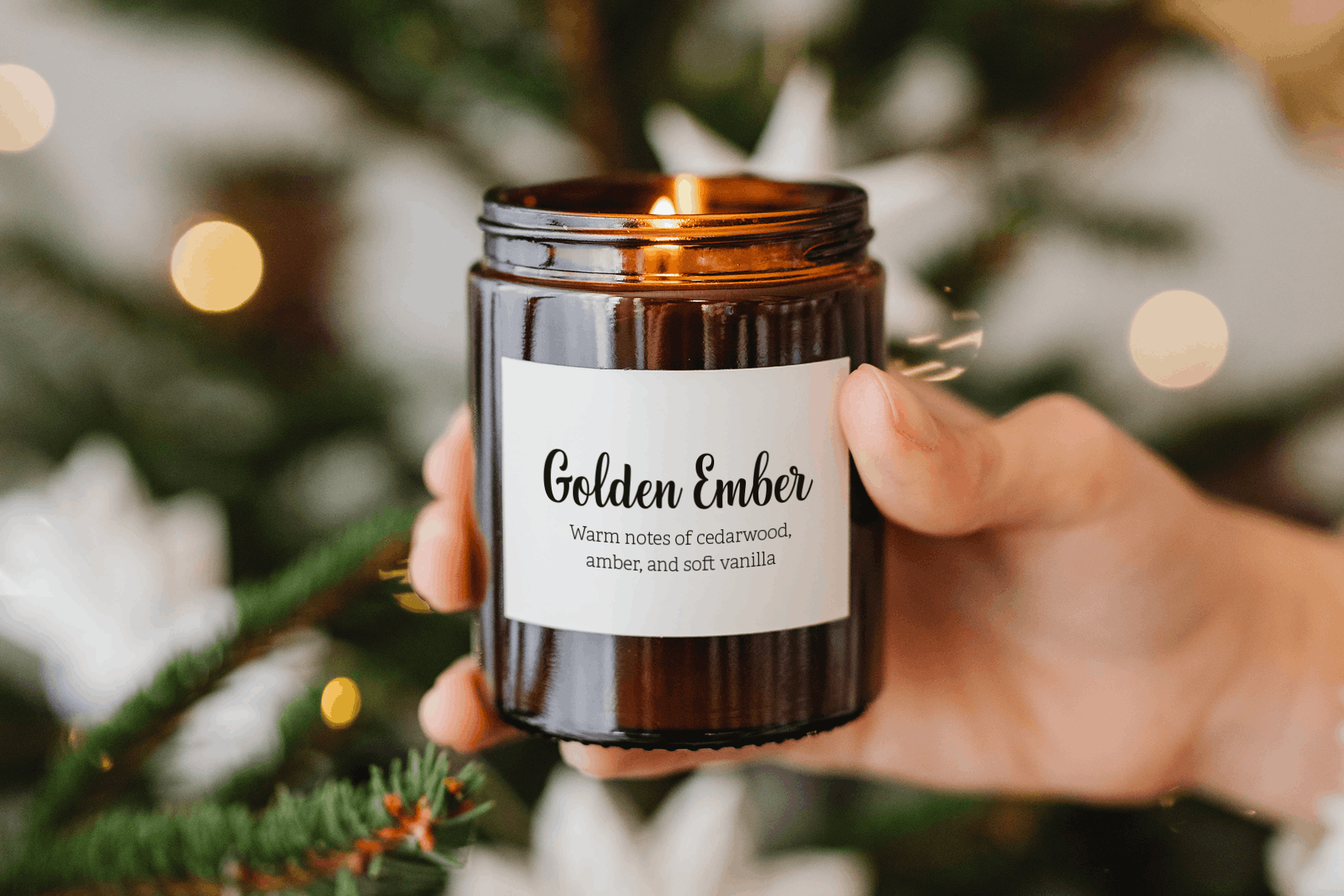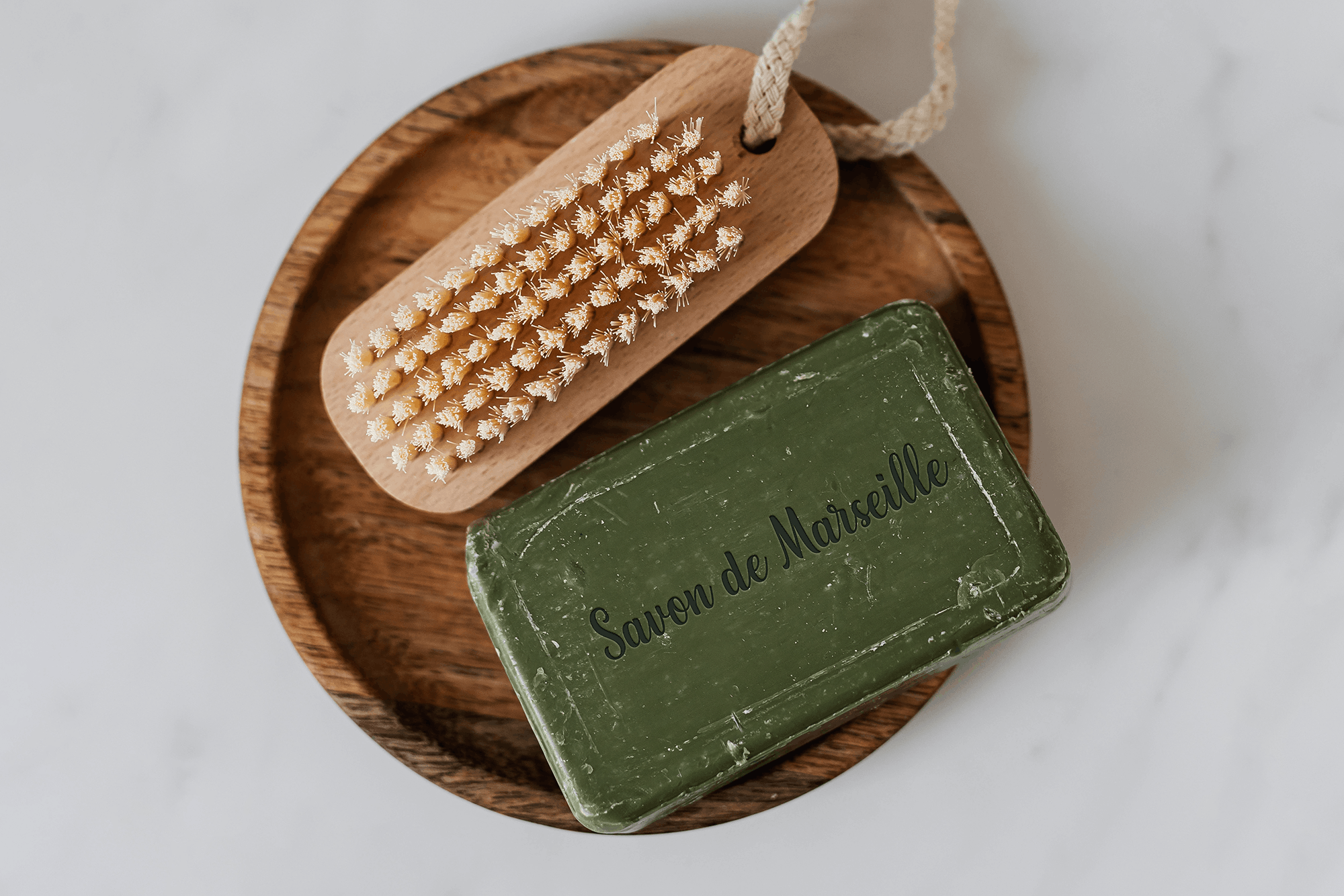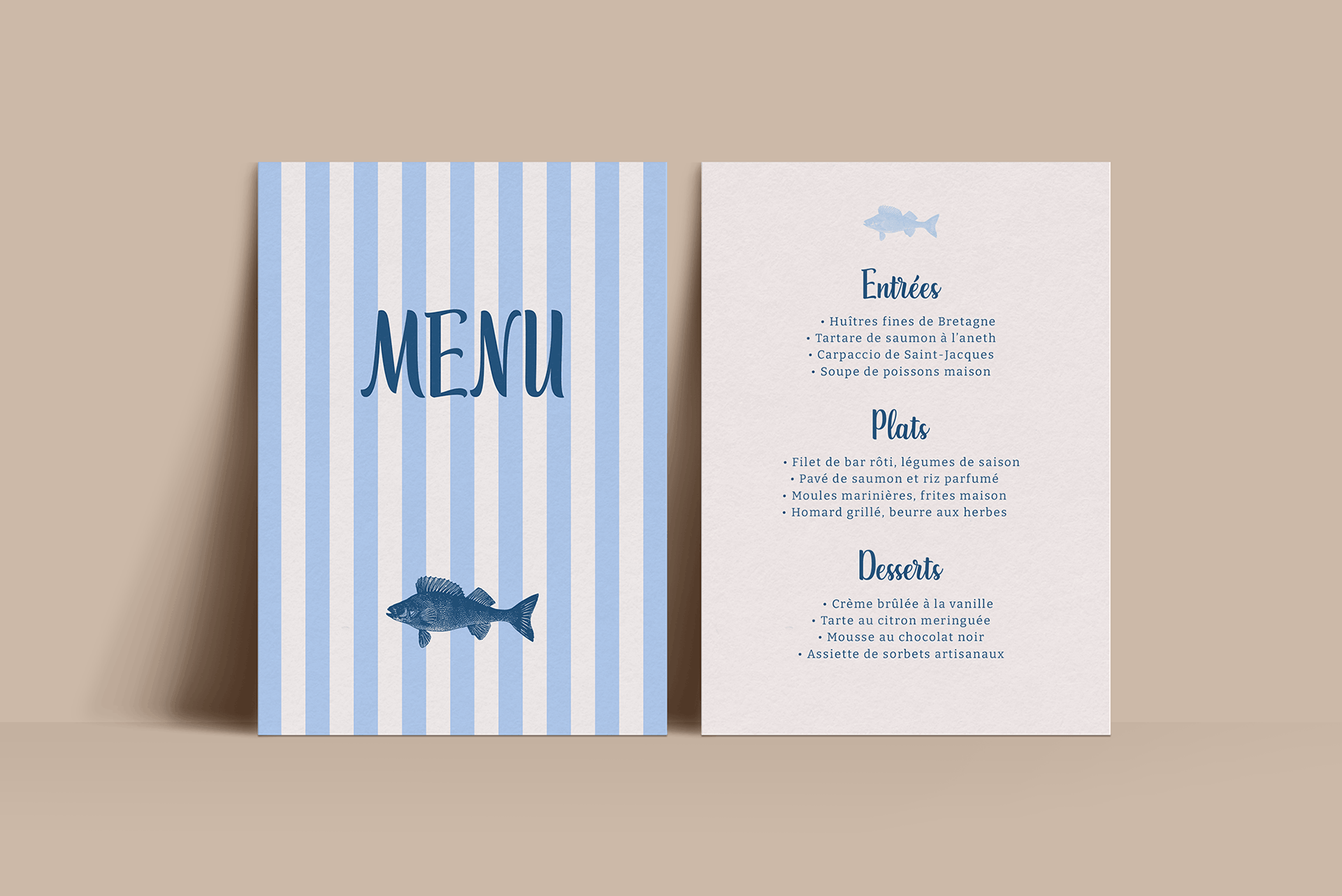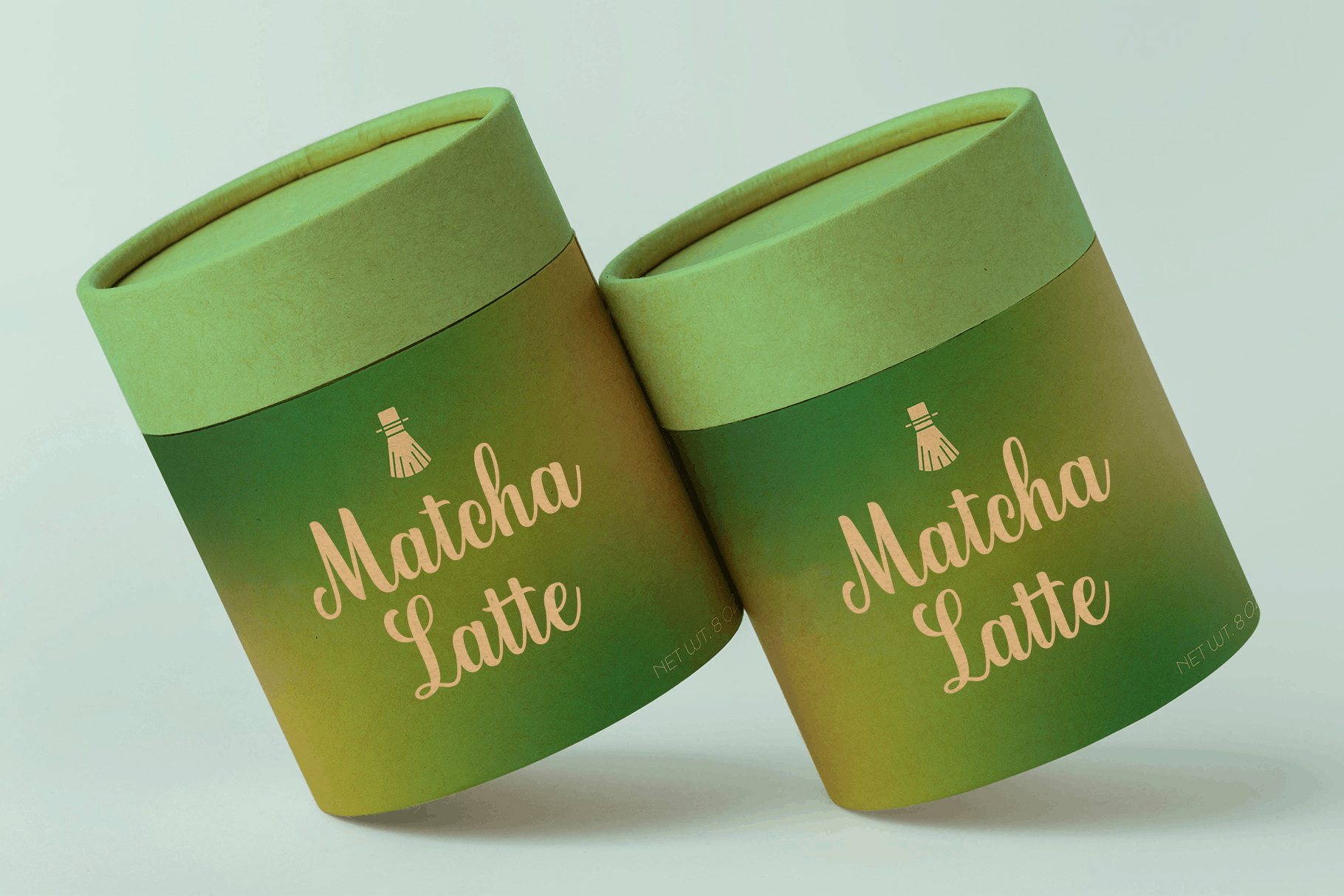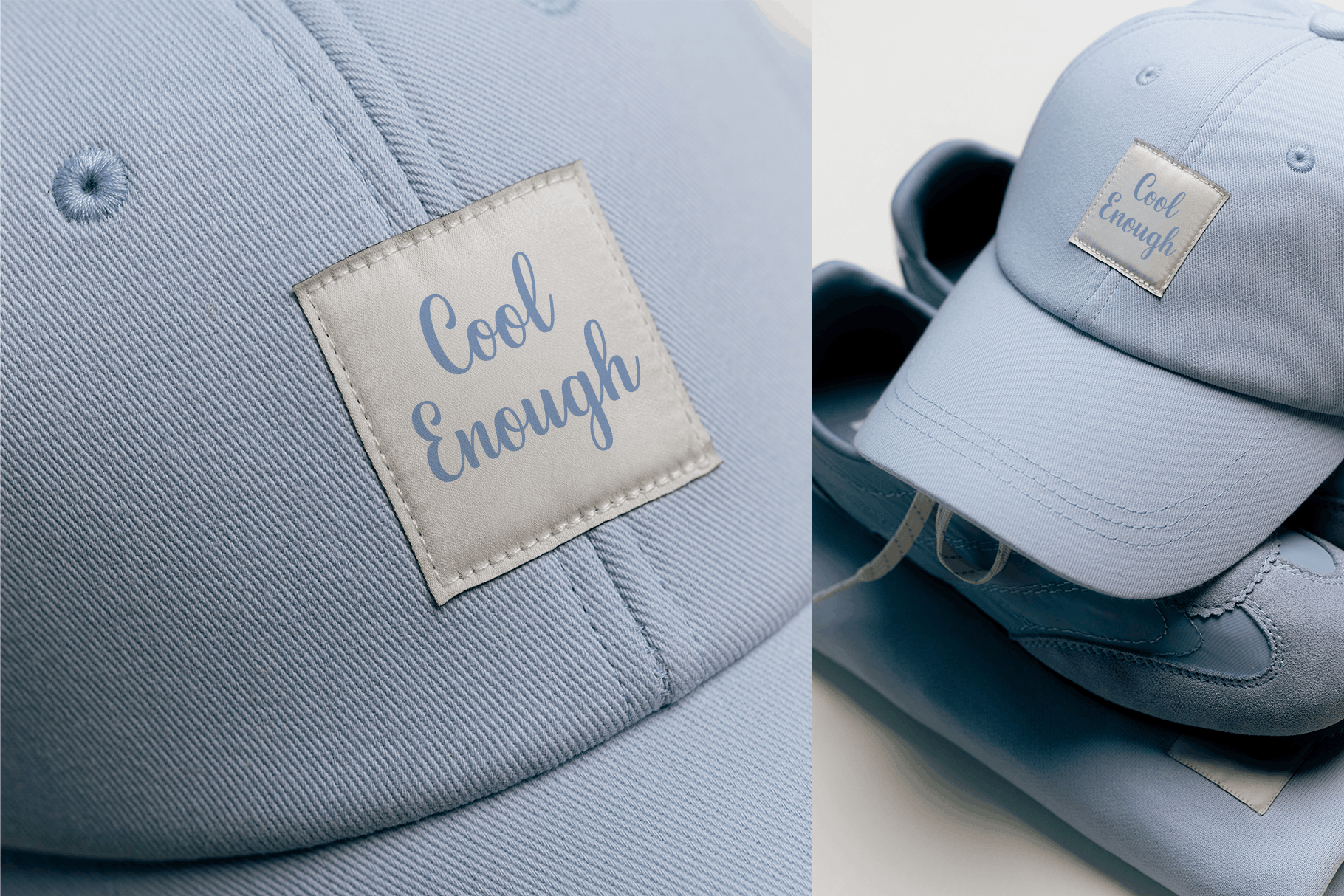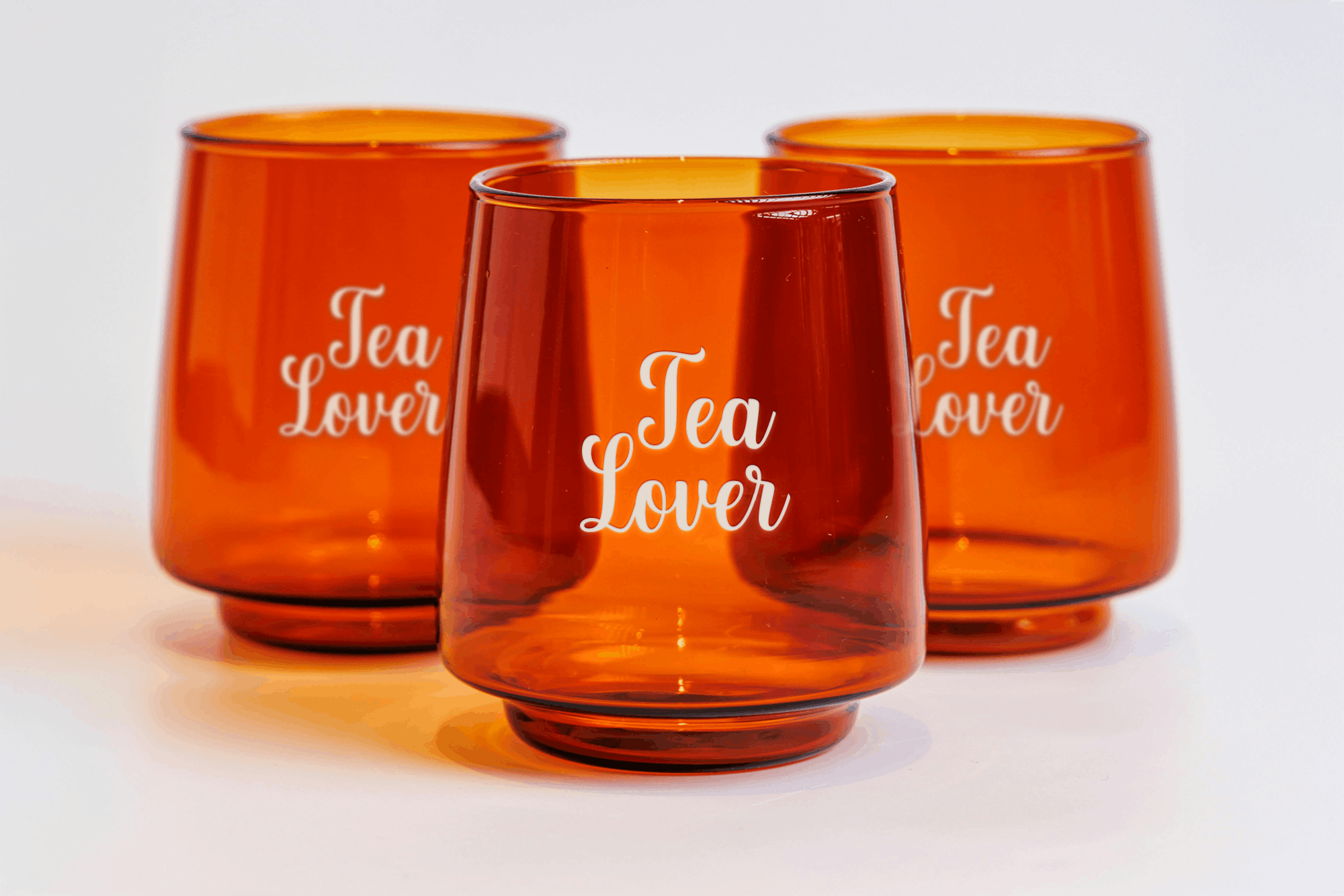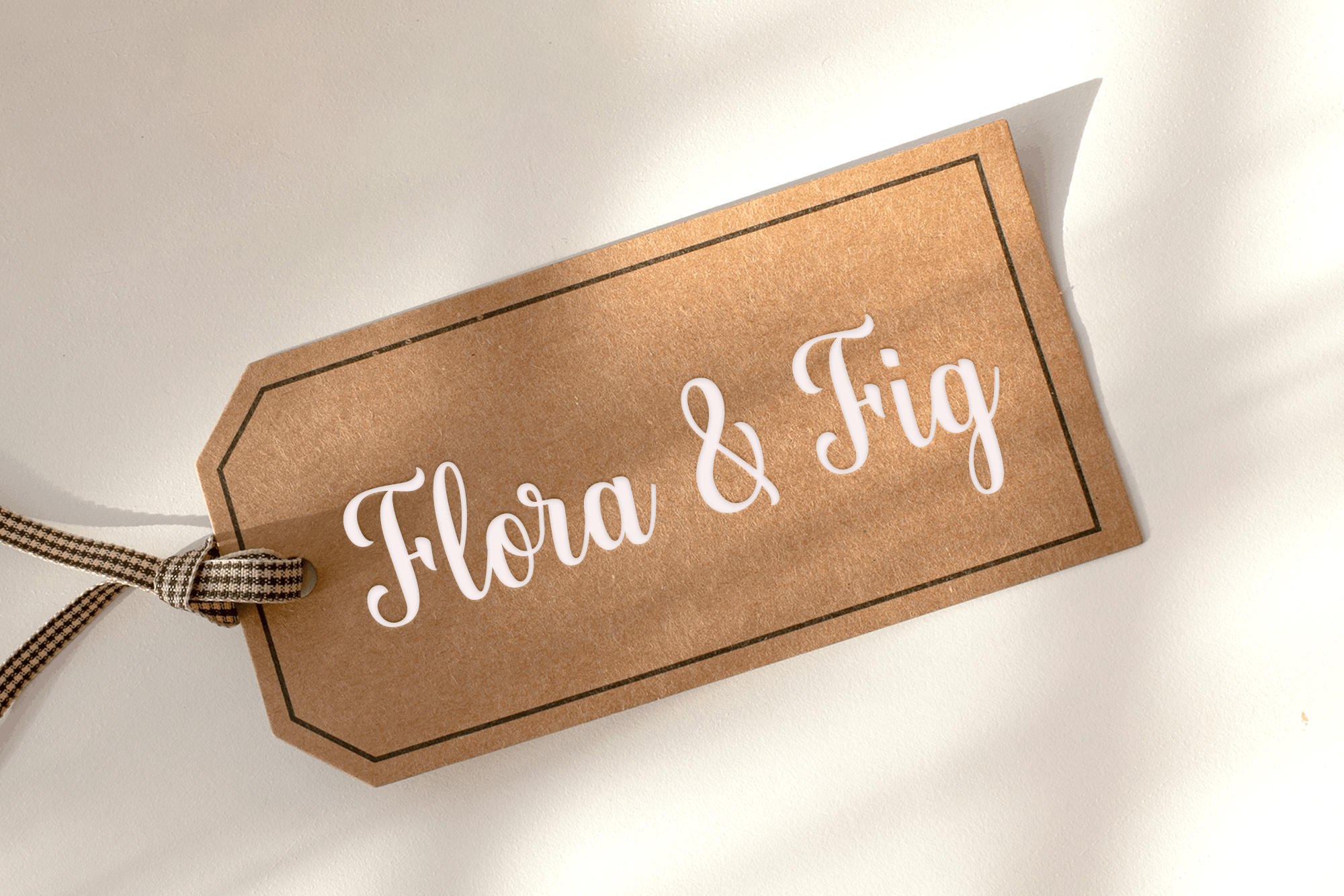
Bonnie Script Pro
Handwritten Typeface
Bonnie Script Pro is a handwritten typeface inspired by modern calligraphy, natural handwriting, and vintage sign painting. Its smooth, flowing letterforms give it a natural, personal feel, making it a great choice for branding, logos, packaging, stationery, and other creative projects.
Alternate UppercaseА Б В Г Д Е Ж З И Й К Л М Н О П Р С Т У Ф Х Ц Ч Ш Щ Ъ Ы Ь Э Ю Я абвгдеёжзийклмнопрстуфхцчшщъыьэюя
Cyrillic Letterforms